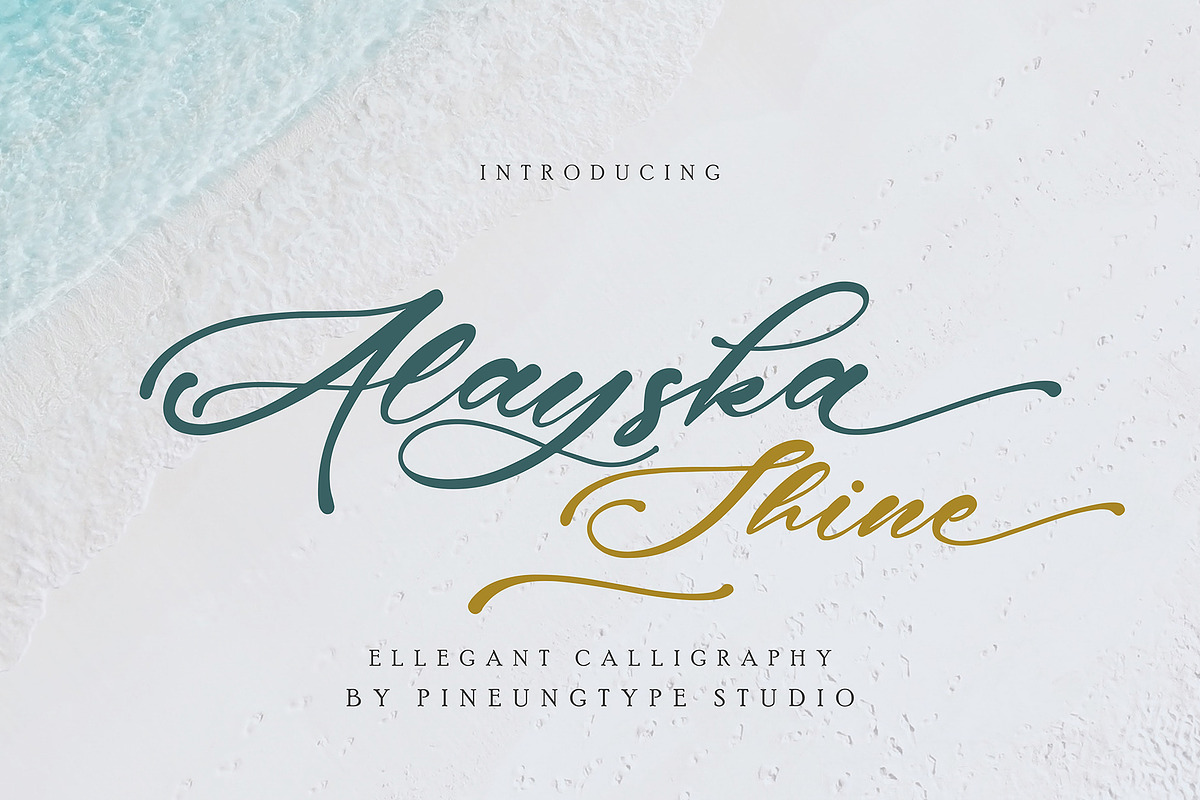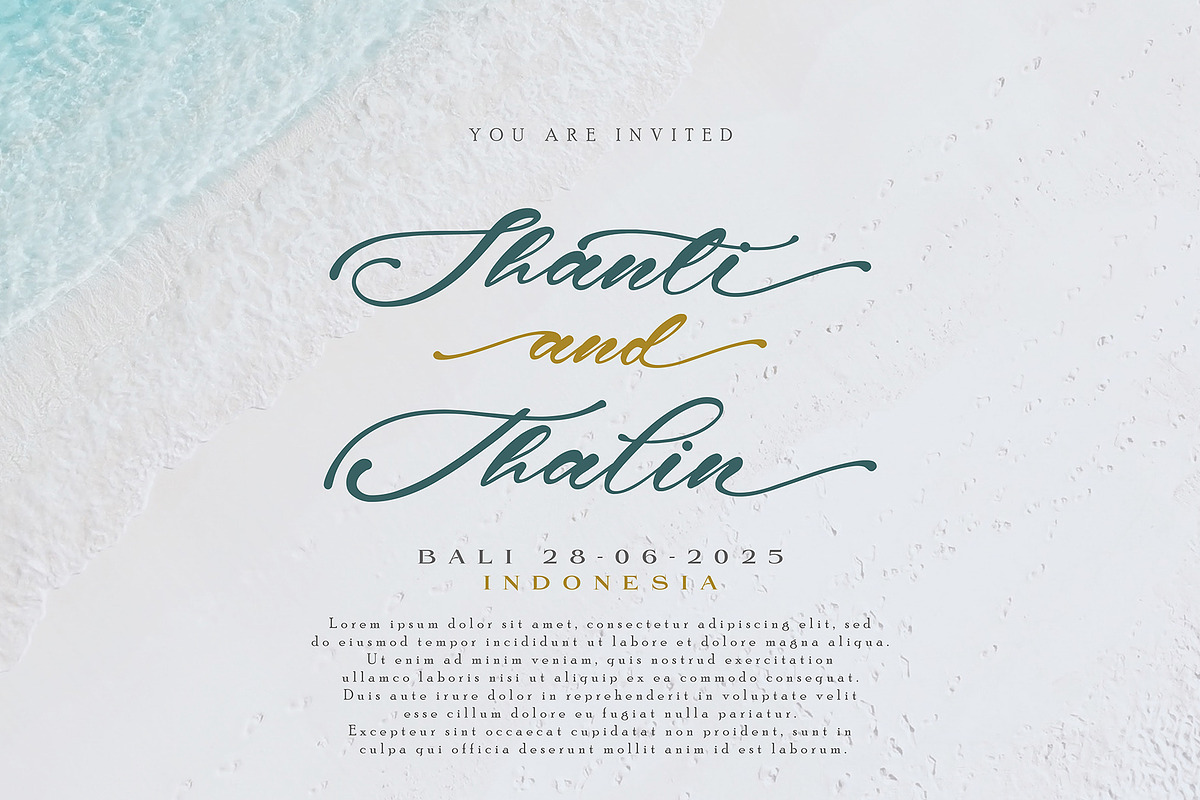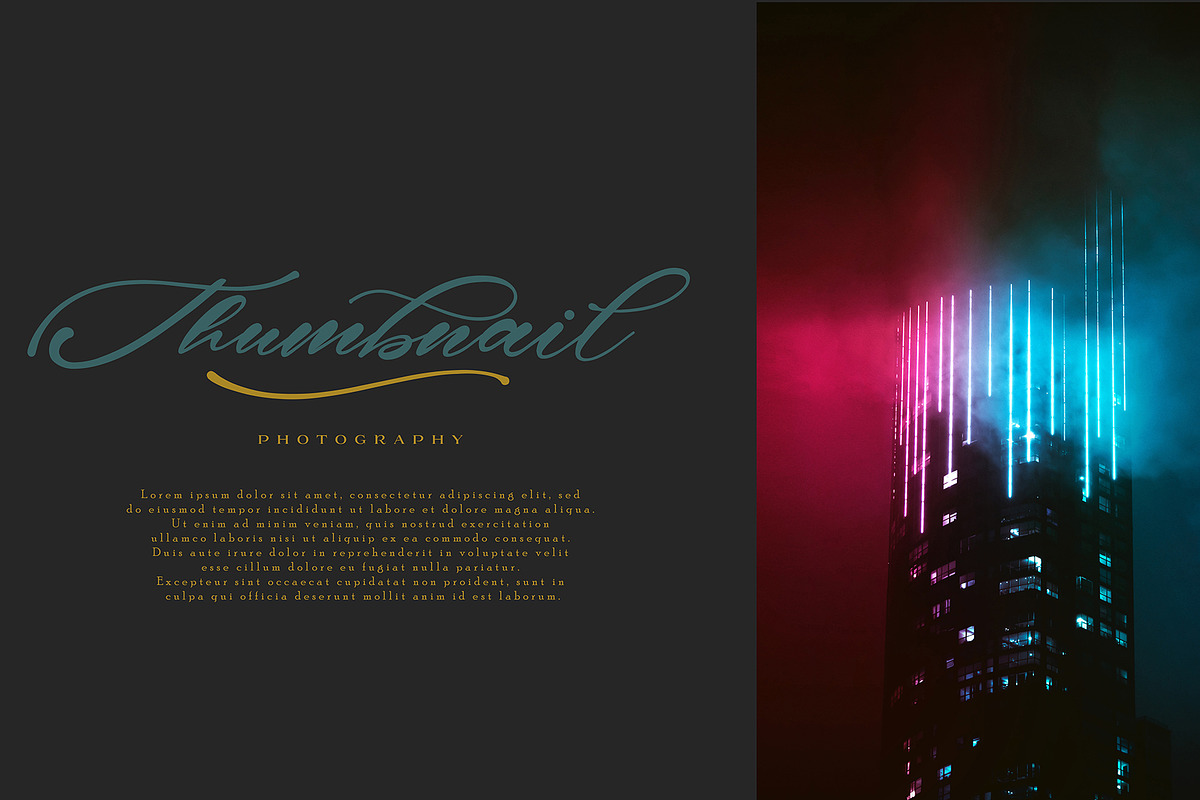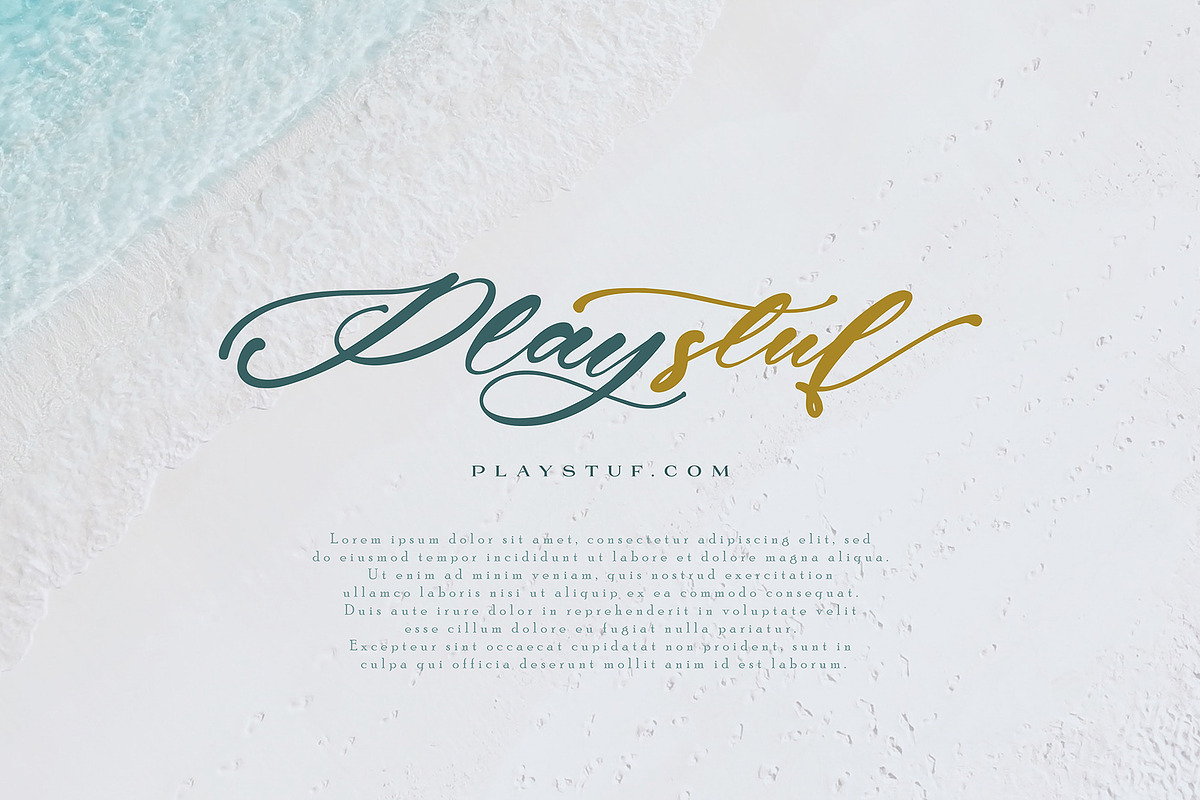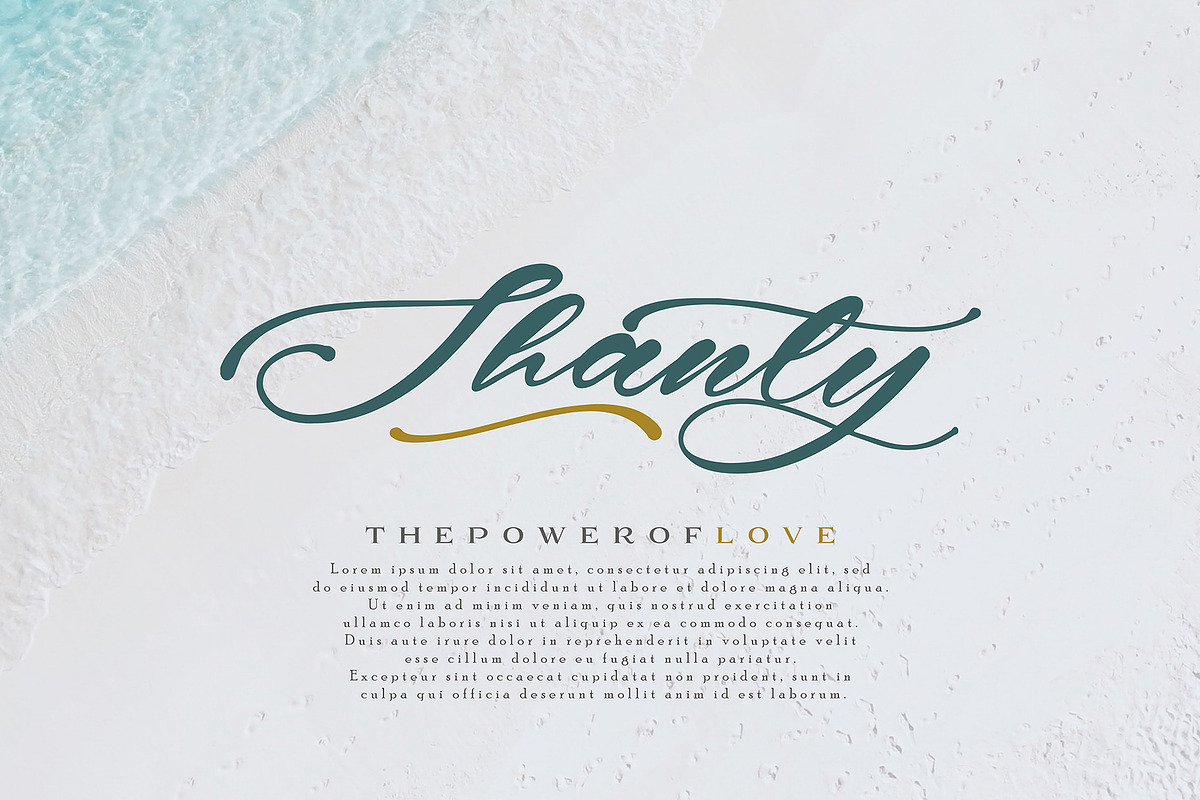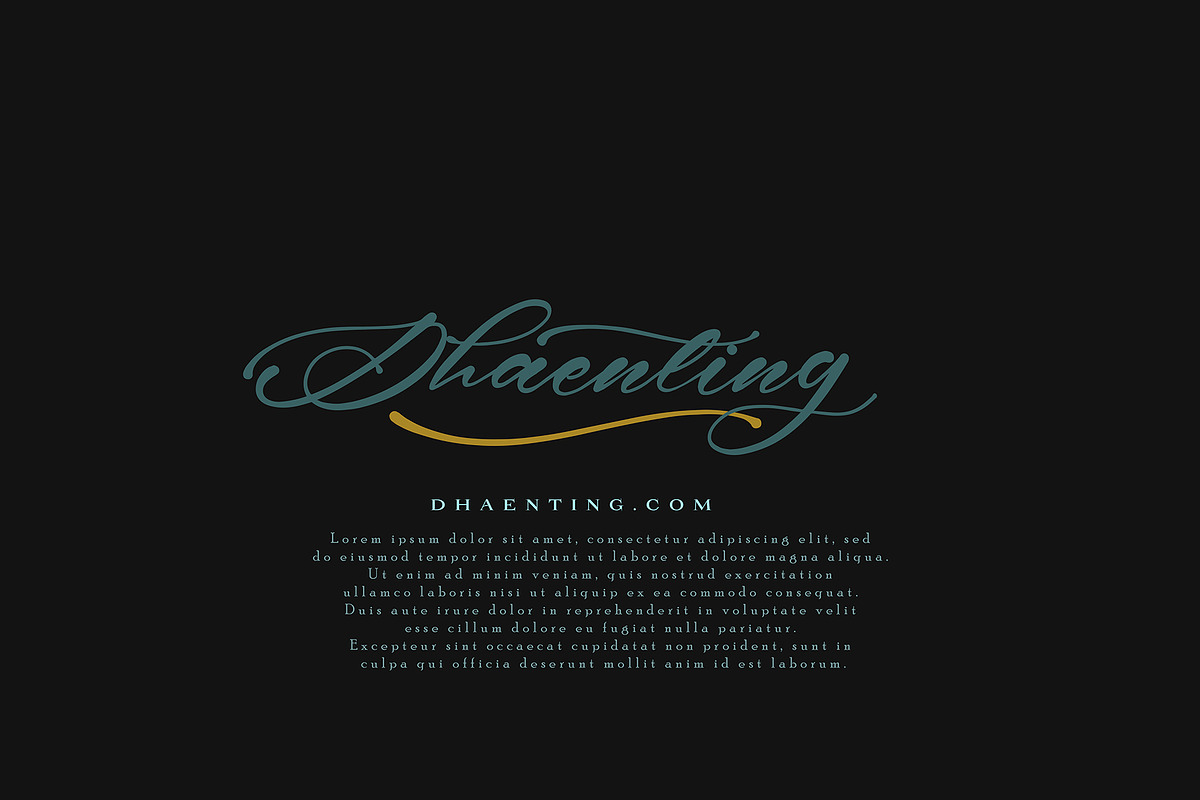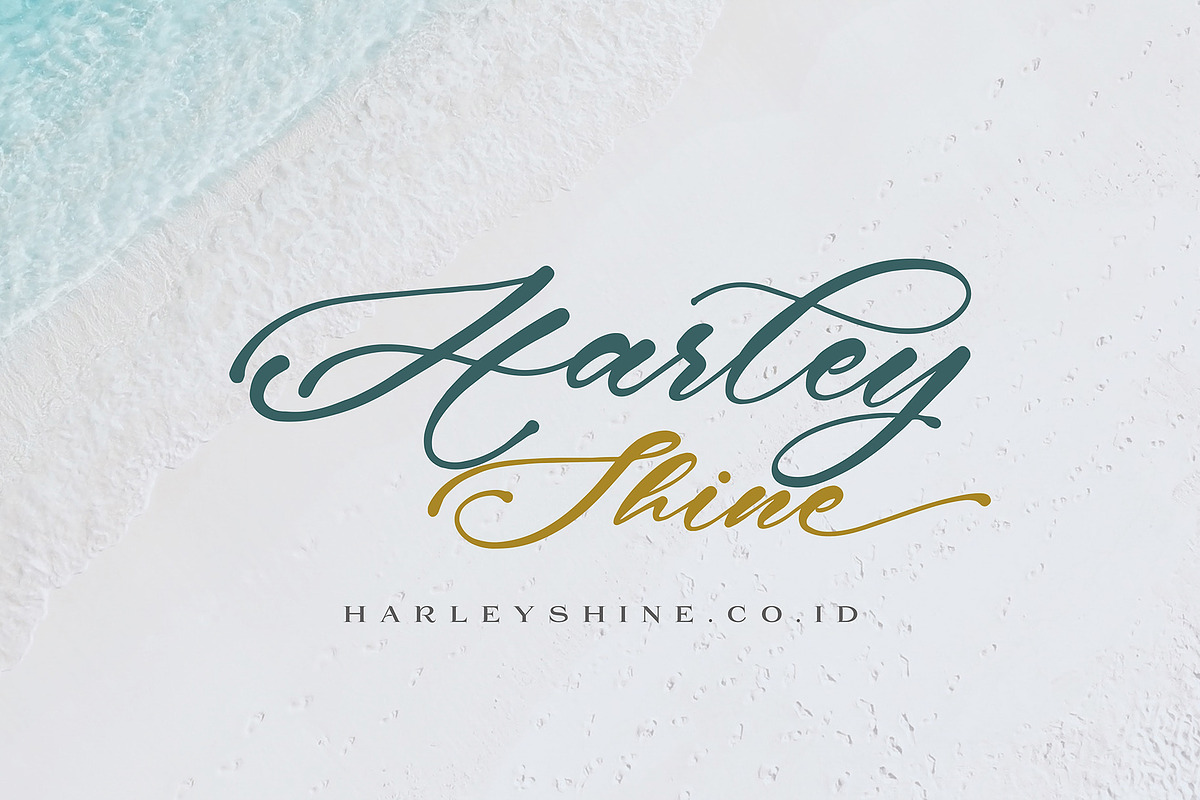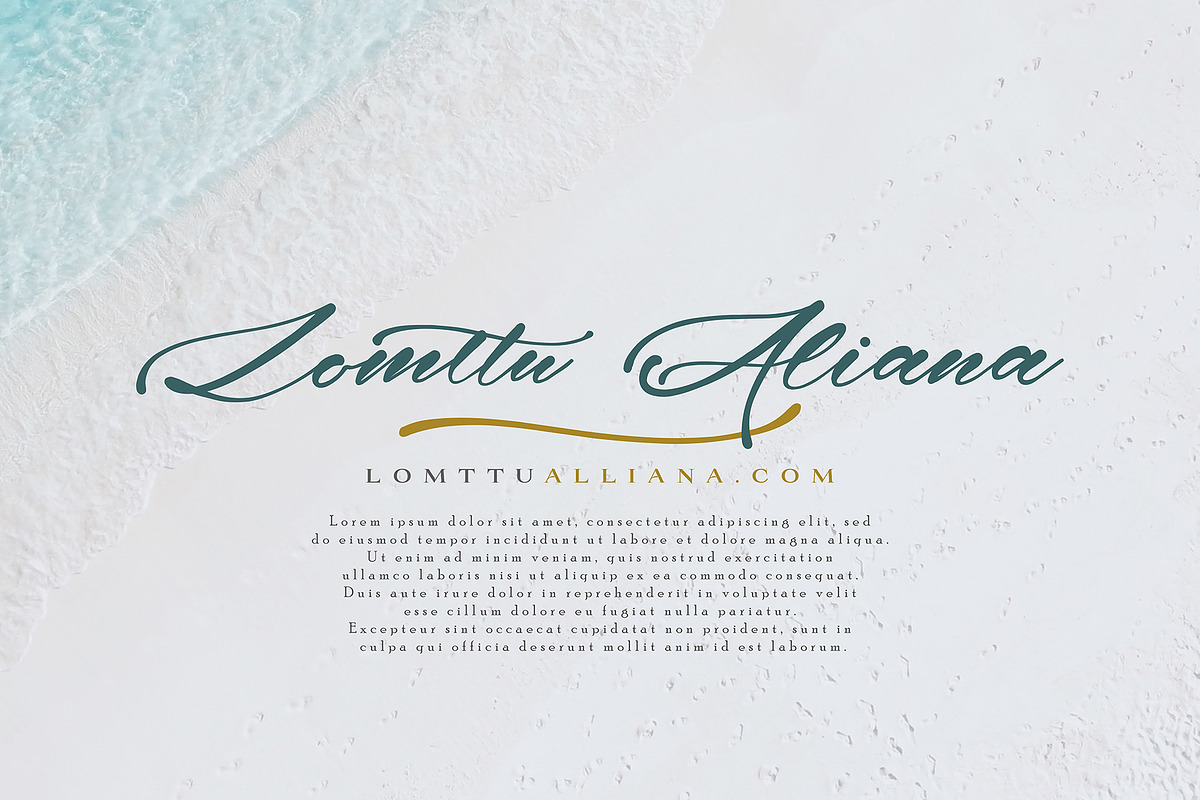
Alayska elegant calligraphy font this font will perfect for many different project ex: quotes, logo, blog header, poster, banding, fashion, apparel, letter, invitation, stationery, etc...